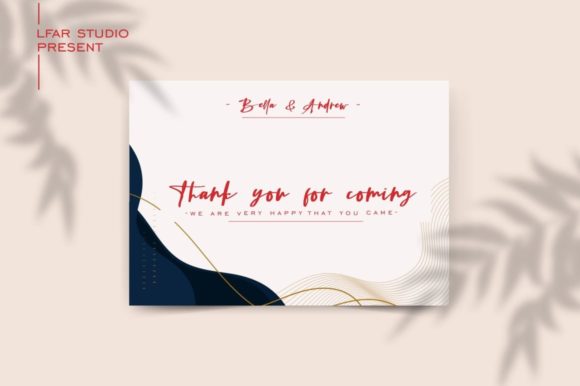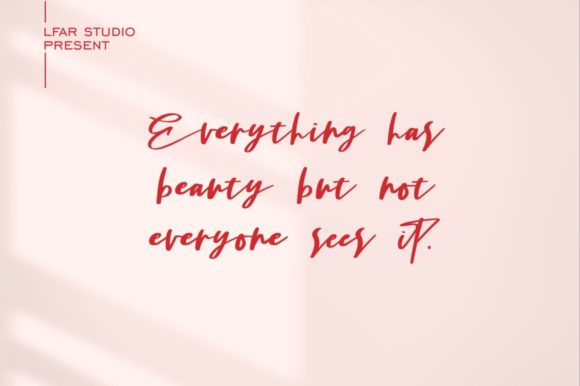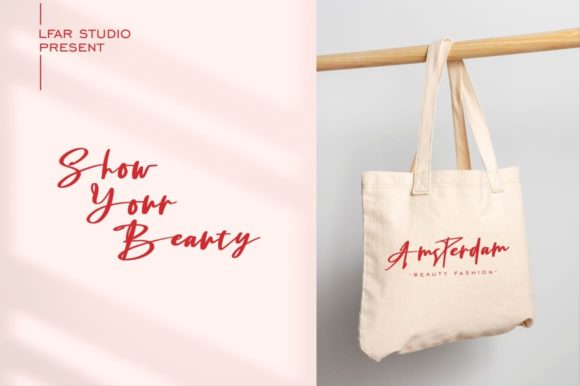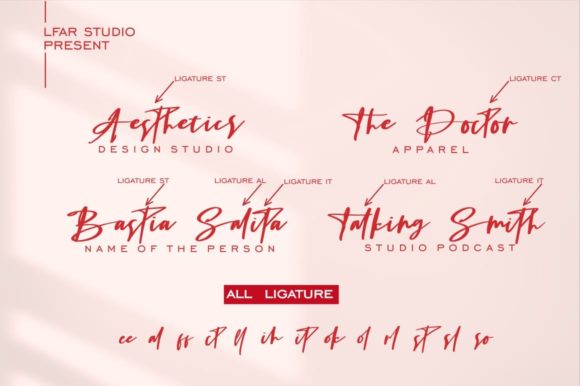
About Alleandra Smith Font
Alleandra Smith is an aesthetic handwritten font, featuring a cool and elegant style. This font perfect for wedding invitations, adventures show titles, photography, and so on. This font is PUA encoded which means you can access all of the glyphs and ligatures with ease!